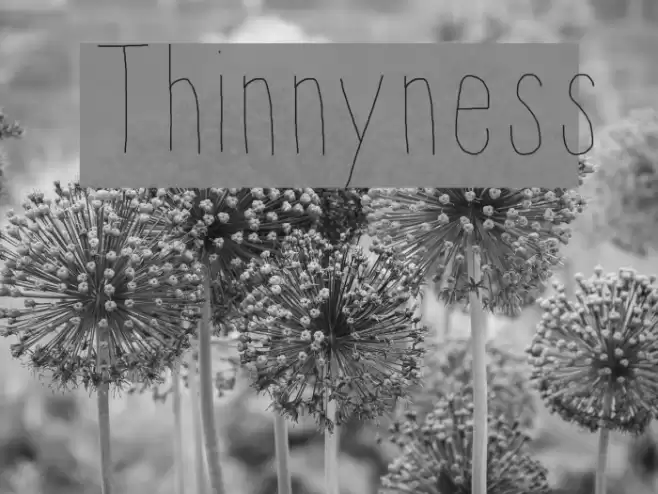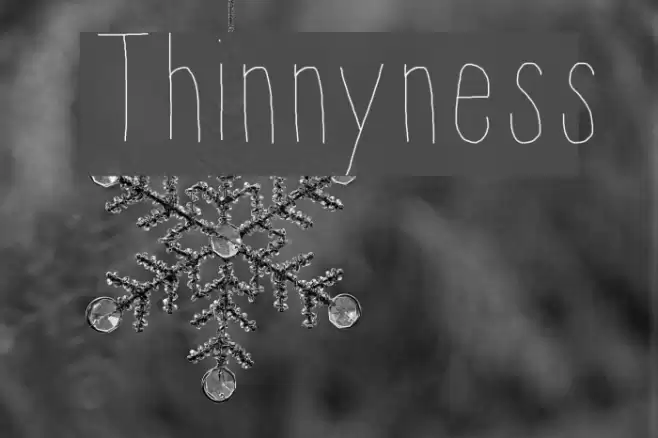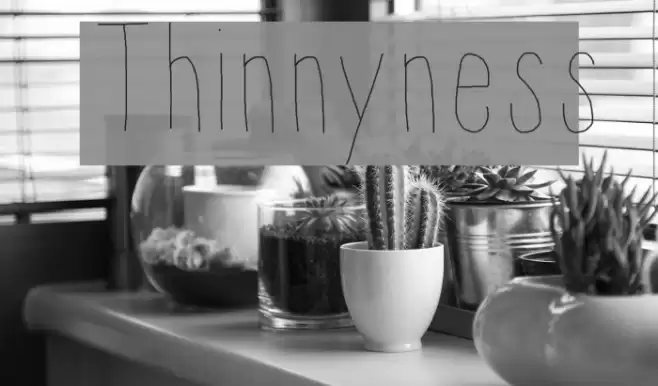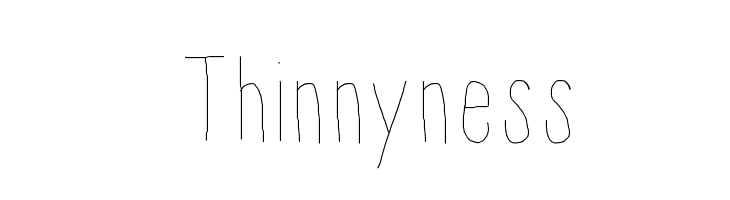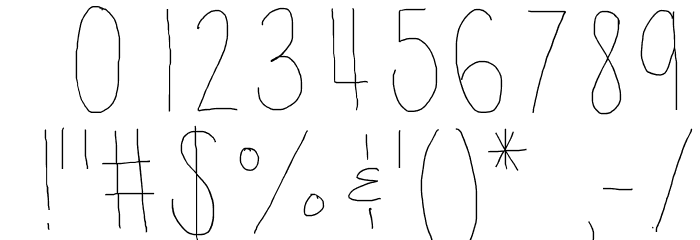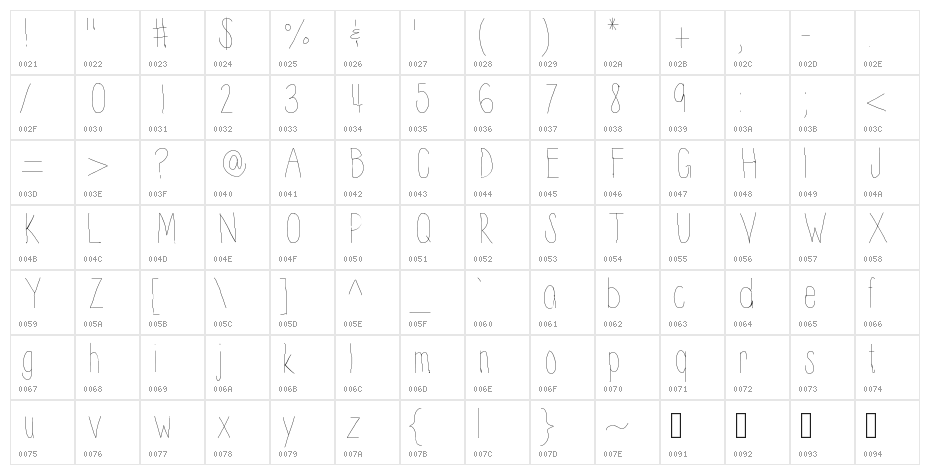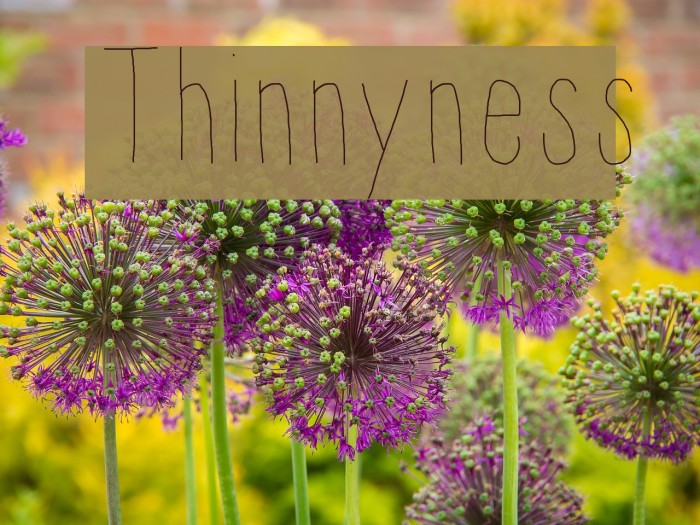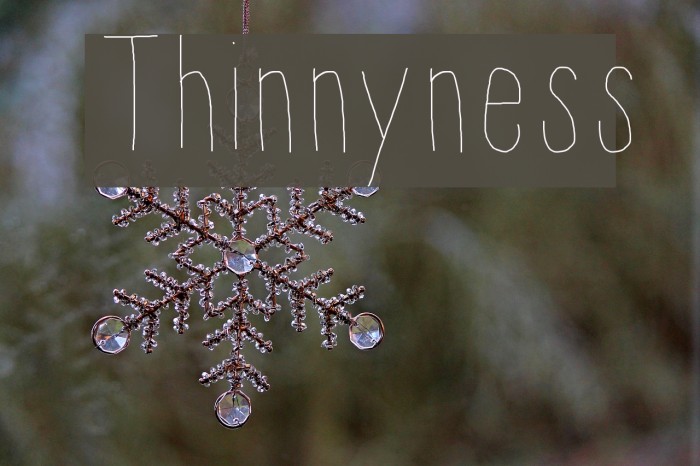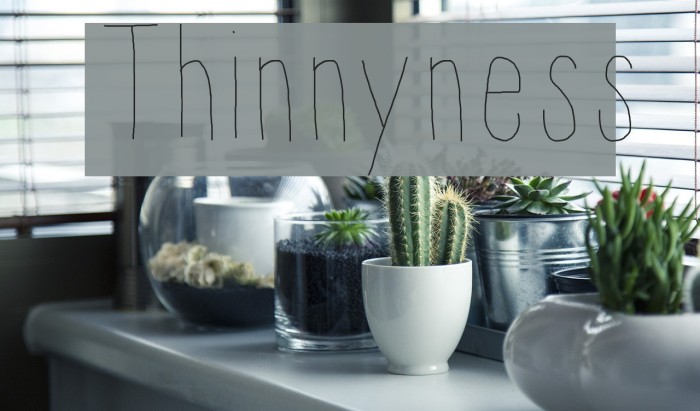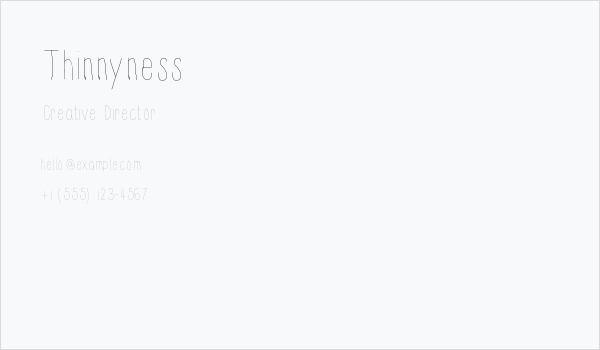
Thinnyness Font
Thinnyness Description
This font features a minimalist and hand-drawn aesthetic, characterized by its extremely thin and elongated letterforms. The strokes are consistent in their slenderness, giving the typeface a delicate and airy feel. The uppercase and lowercase letters maintain a uniform height, contributing to a cohesive appearance. Numbers and special characters are designed with the same thin lines, ensuring visual harmony across all glyphs. The overall style is casual and informal, making it suitable for projects that require a personal touch or a sense of lightness.
A thin, hand-drawn font with a minimalist and airy appearance from Uncategorized fonts.
- Proposed Projects: Ideal for personal projects, greeting cards, casual invitations, or any design needing a light, informal touch.
- Overall Style: Casual, Minimalist
- Use Case: Headlines, Informal text, Personal projects